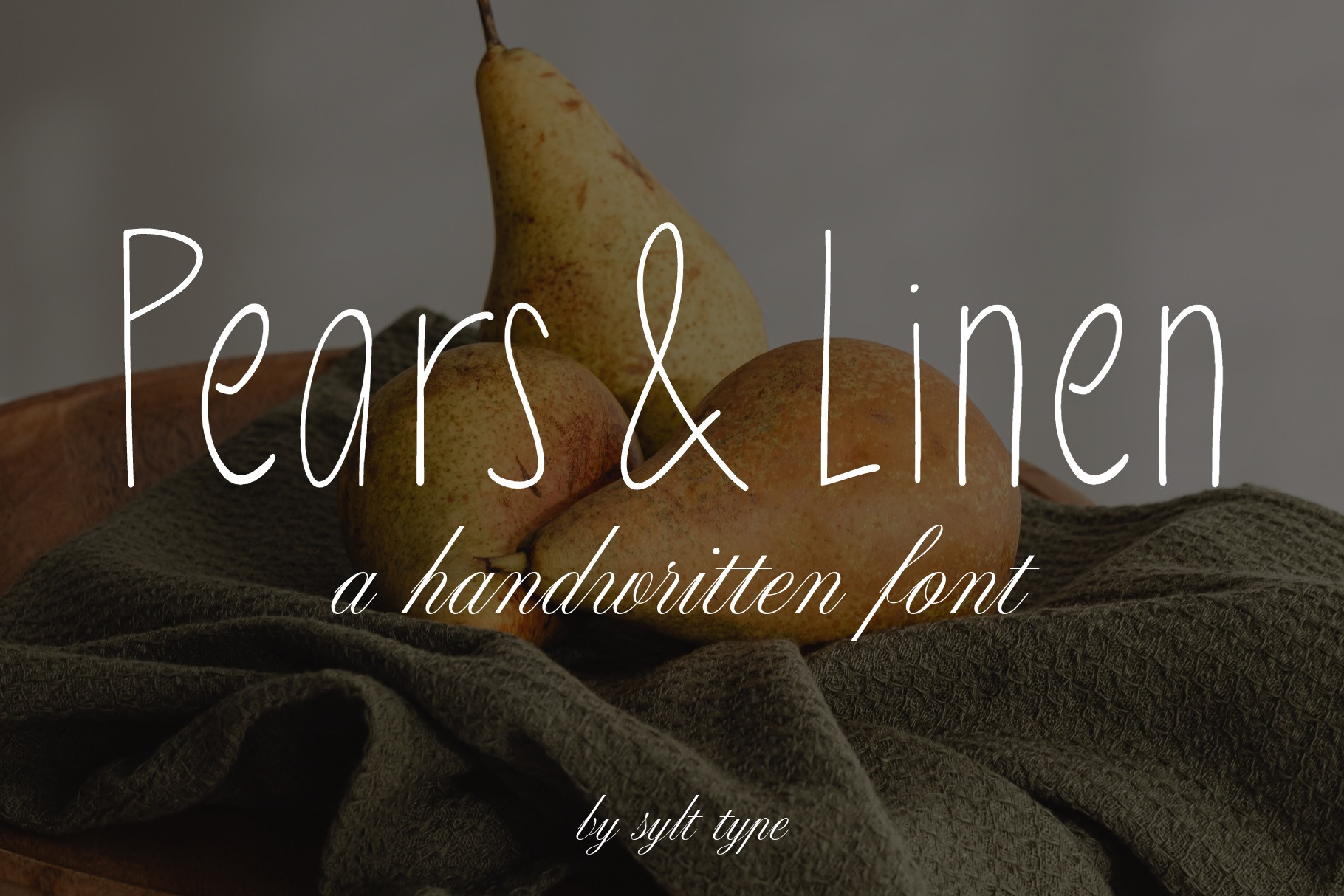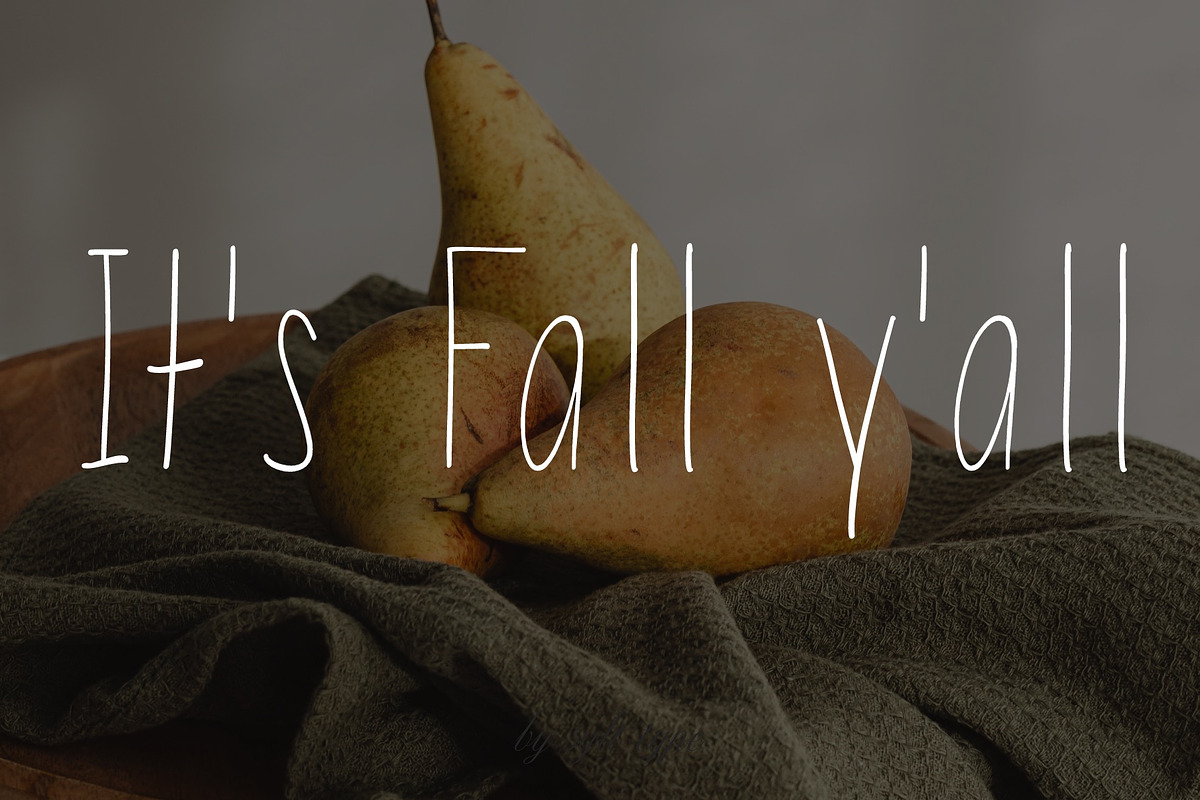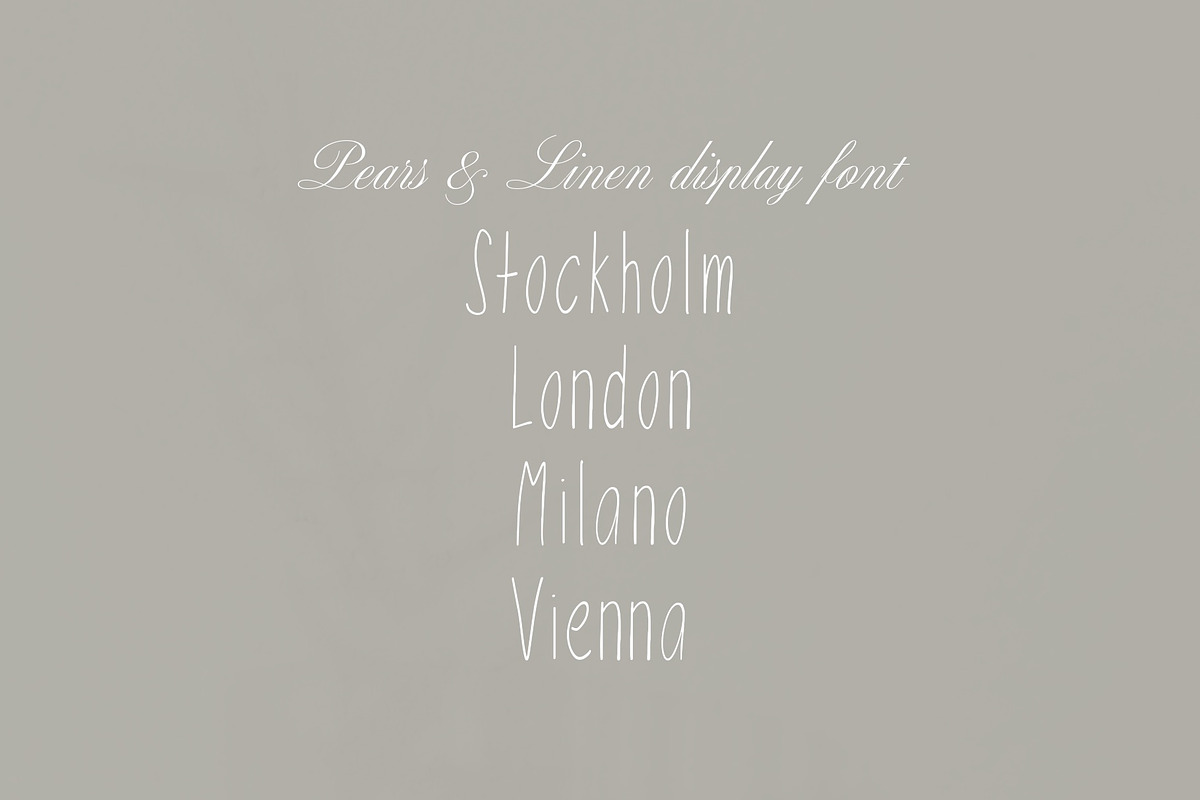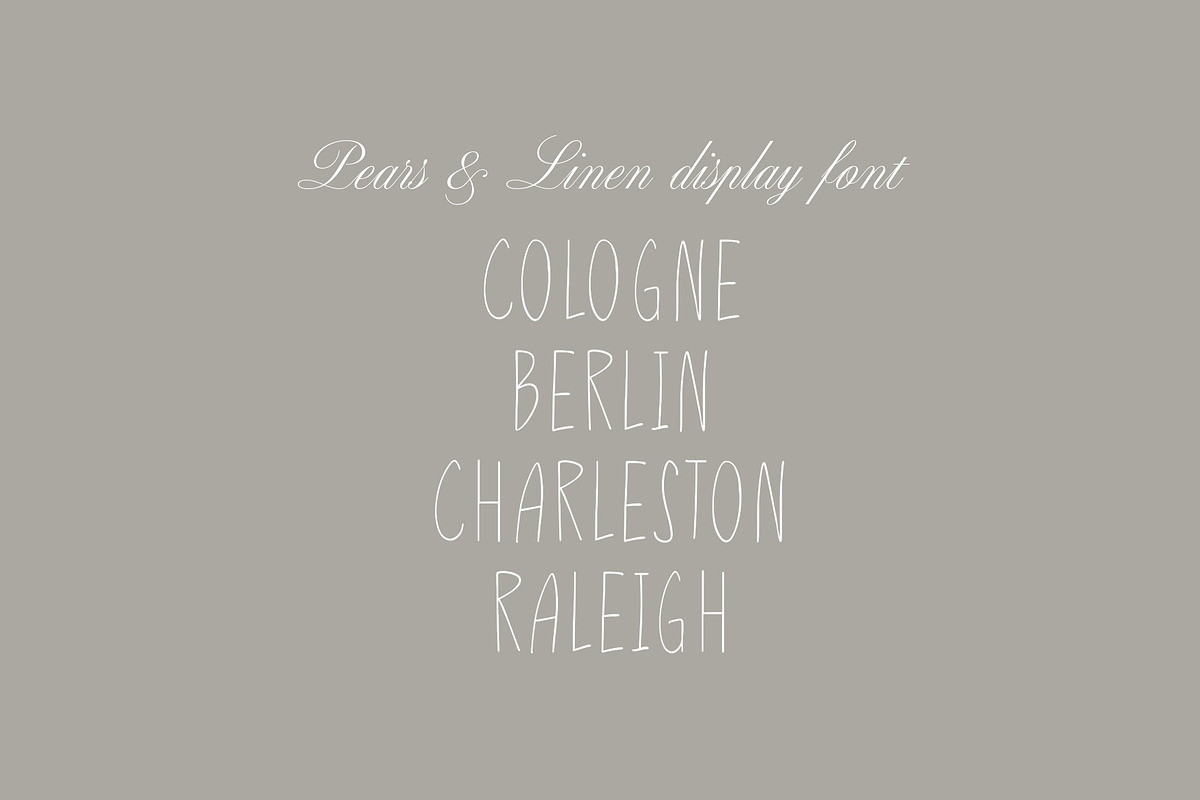
Pears & Linen | Handwritten Font
A fun and quirky handwritten font, Pears & Linen is perfect for light-hearted designs.
Uppercase, lowercase & punctuation.